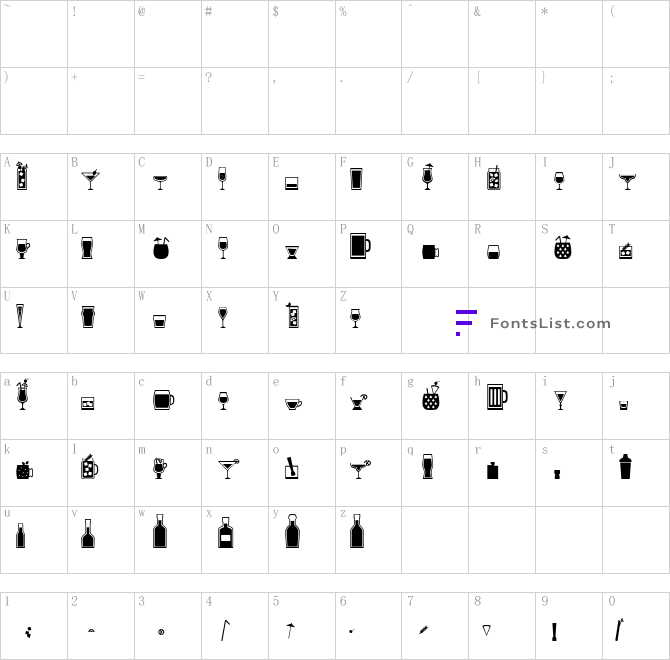
• Font Name:Bar Book
• Subfamily:pyrs: Bar Book: 2016
• Full Name:Bar Book
Bar-Book.ttf is a very beautiful artistic font, Bar-Book.ttf is widely used in the design and printing of various books and pictures,Bar-Book.ttf has a strong visual impact,Bar-Book.ttf is a commonly used font in newspapers, magazines and books, and is used in posters, e-commerce Poster design, store design, logo design, font design and other fields.Bar-Book.